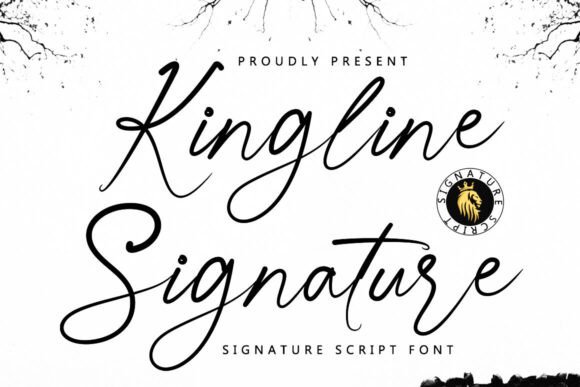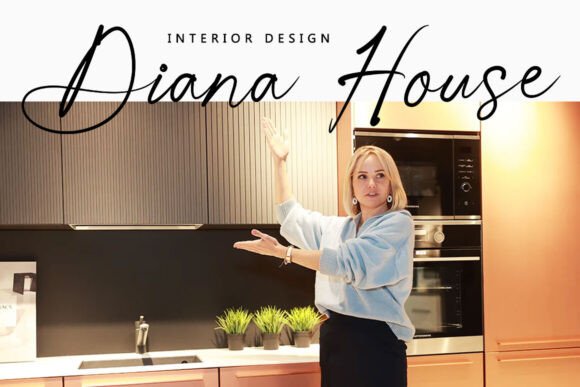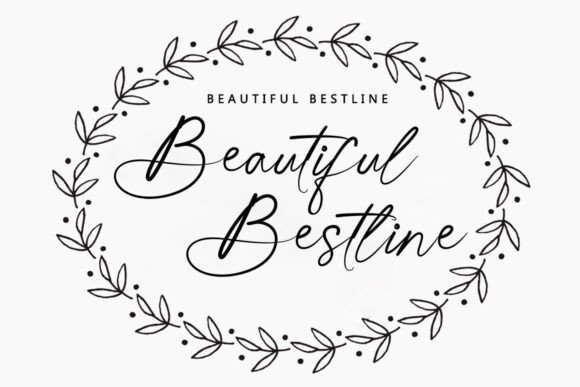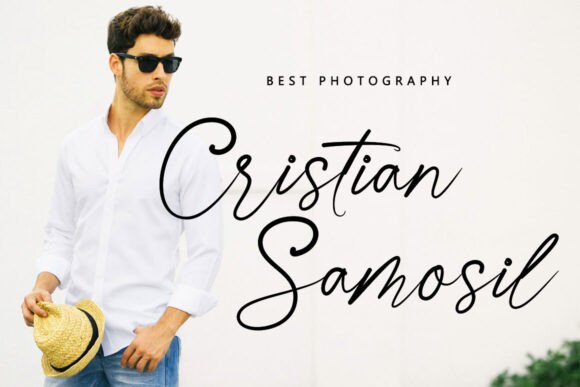
Kingline Signature Font
About the Kingline Signature Font
We are excited to introduce Kingline Signature Font, a must-have typeface for any serious designer. Kingline Signature is a refined script font crafted for elegance and personality. Perfect for logos, personal branding, and signature-style designs, it combines grace with a handcrafted feel.
Kingline Signature excels in applications requiring a touch of refined elegance, such as logos, wedding invitations, and short-form marketing materials. Its handcrafted feel makes it ideal for projects emphasizing authenticity and a personal touch. However, its intricate detailing makes it unsuitable for body text or UI elements where readability is paramount. Avoid using it for long paragraphs or small sizes.
This script font’s personality is sophisticated yet approachable. It works best for brands projecting a sense of luxury, timelessness, or handcrafted quality. Think high-end boutiques, artisanal goods, or personalized stationery.
For effective pairings, consider a clean sans-serif like Montserrat or a modern serif such as Lora to balance its ornate style. These pairings provide a strong contrast that enhances readability and prevents the design from feeling overly busy. A simple geometric sans-serif could also offer a striking modern counterpoint.
Kingline Signature Font Usage Examples
Kingline Signature Font Example